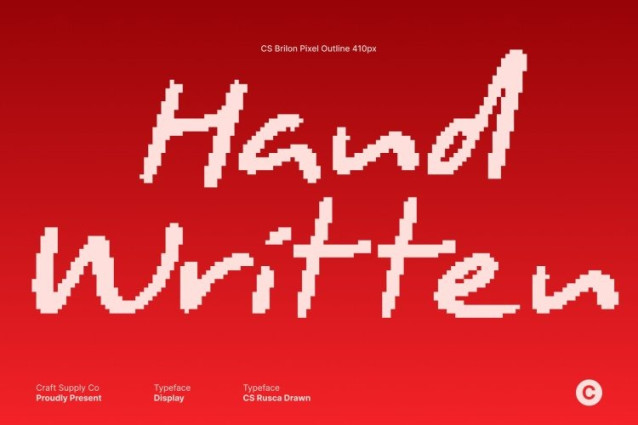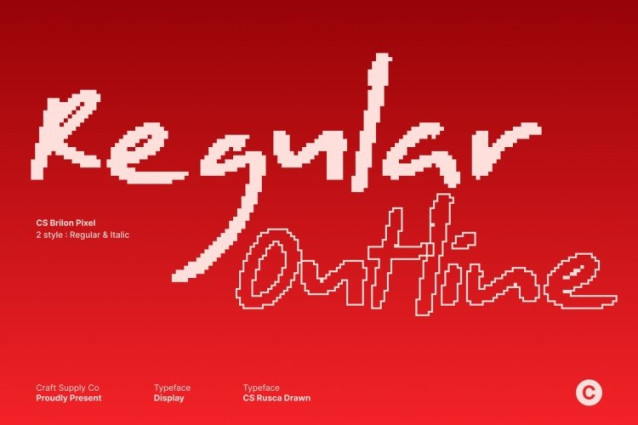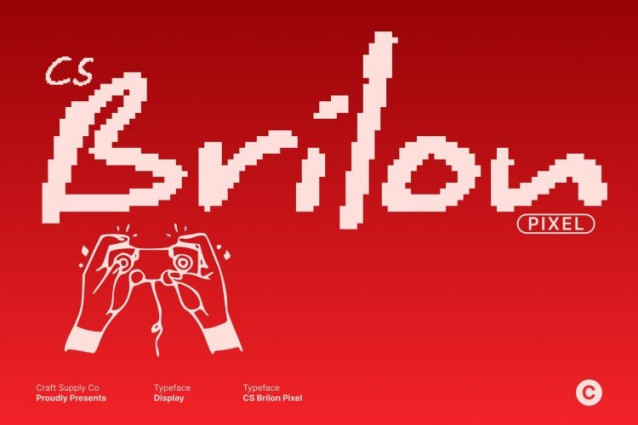
CS Brilon Pixel Font
CS Brilon Pixel Font This is a hand-drawn sans serif display font created to celebrate artistic freedom and organic expression. Built with textured, pixel-based strokes and intentionally imperfect edges, this typeface delivers a raw, handmade feel full of personality and authenticity. It breaks away from rigid geometric structures, making it ideal for creative projects that value individuality and human touch over precision.
Imperfect Edges and Natural Texture
The distinctive charm of lies in its irregular outlines and visible texture. Each character carries subtle imperfections that add warmth and depth, creating a natural rhythm across words and layouts. These handcrafted details give the font a tactile, expressive quality while maintaining strong legibility for display use.
Expressive Style for Creative Storytelling
Designed for imaginative and expressive environments, supports creative storytelling through typography. Its organic forms convey emotion and artistic energy, making it perfect for bold headlines, statement text, and visual narratives that demand character and originality.
Ideal for Creative Branding and Print
This font excels in posters, packaging, creative branding, editorial visuals, and promotional materials. Its handmade aesthetic makes it especially well suited for artisanal products, indie brands, creative studios, and lifestyle projects that seek authenticity, creativity, and visual warmth.